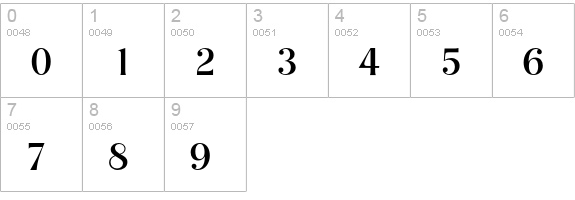
NashvilleEF-Regular is the standard, neutral variant in the NashvilleEF typeface family \xE2\x80\x94 well suited to general body text, paragraphs, and standard typographic work.
NashvilleEF-Regular is a versatile and stylish font that exudes a modern and sophisticated charm. With its clean lines and elegant curves, this font is perfect for a wide range of design projects, from branding and advertising to invitations and packaging. The sleek and contemporary look of NashvilleEF-Regular makes it a standout choice for any creative endeavor. What sets NashvilleEF-Regular apart is that it is completely free to download at FontsMarket.com. This means you can access this high-quality font without any cost, making it a valuable resource for designers and enthusiasts alike. Whether you're working on a personal project or a professional assignment, NashvilleEF-Regular is sure to elevate your design with its unique aesthetic and timeless appeal. Download it today and add a touch of sophistication to your next project.